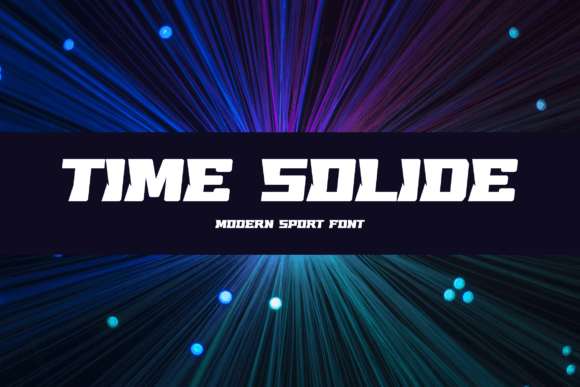
Introducing TimeSolide Font: The Ultimate Choice for Bold and Authentic Designs
Are you looking for a font that can add a touch of boldness and authenticity to your branding project? Look no further than TimeSolide Font. This sport font is designed to make a statement, and its versatility makes it suitable for a wide range of applications, from logos and sports-related projects to much more.
What is TimeSolide Font?
TimeSolide Font is a display font that is specifically crafted to provide a bold and authentic look to your designs. Its unique style and structure make it stand out in a wide range of contexts, ensuring that your project grabs attention and leaves a lasting impression.
Key Features of TimeSolide Font
1. Bold and Authentic Design
The primary feature of TimeSolide Font is its bold and authentic design. The font is crafted to provide a strong and rugged look that can add a touch of masculinity to your project.
2. Versatile and Multi-Purpose
TimeSolide Font is not limited to a specific type of project. Its versatility makes it suitable for various applications, including logos, sports-related projects, and much more.
3. Highly Legible
Despite its bold design, TimeSolide Font is highly legible, making it easy to read and understand. This feature is particularly important for projects that require a clear and concise message.
Benefits of Using TimeSolide Font
1. Enhances Brand Identity
Using TimeSolide Font can help enhance your brand identity by providing a unique and distinctive look. The font’s bold design can help your brand stand out in a crowded market.
2. Adds Professionalism
TimeSolide Font is designed to provide a professional look to your project. Its clean and structured design makes it suitable for projects that require a high level of professionalism.
3. Increases Engagement
The bold and authentic design of TimeSolide Font can help increase engagement with your audience. The font’s unique style can grab attention and encourage users to interact with your project.
How to Use TimeSolide Font
1. Logo Design
TimeSolide Font is suitable for logo design, providing a bold and authentic look that can help your brand stand out.
2. Sports-Related Projects
The font’s sporty design makes it suitable for sports-related projects, such as jerseys, equipment, and marketing materials.
3. Marketing Materials
TimeSolide Font can be used in various marketing materials, including brochures, flyers, and posters, to provide a bold and attention-grabbing look.
Tips for Using TimeSolide Font
1. Pair with Other Fonts
To add more variety to your design, consider pairing TimeSolide Font with other fonts. This can help create a unique and visually appealing look.
2. Use in Headings and Titles
TimeSolide Font is suitable for headings and titles, providing a bold and attention-grabbing look that can help draw attention to your content.
3. Experiment with Colors
Don’t be afraid to experiment with different colors when using TimeSolide Font. The font’s bold design can make it suitable for a wide range of color schemes.
In conclusion, TimeSolide Font is a bold and authentic display font that can add a touch of professionalism and uniqueness to your branding project. Its versatility and multi-purpose design make it suitable for various applications, from logos and sports-related projects to much more. By following the tips outlined in this article, you can make the most of TimeSolide Font and create a visually appealing design that grabs attention and leaves a lasting impression.